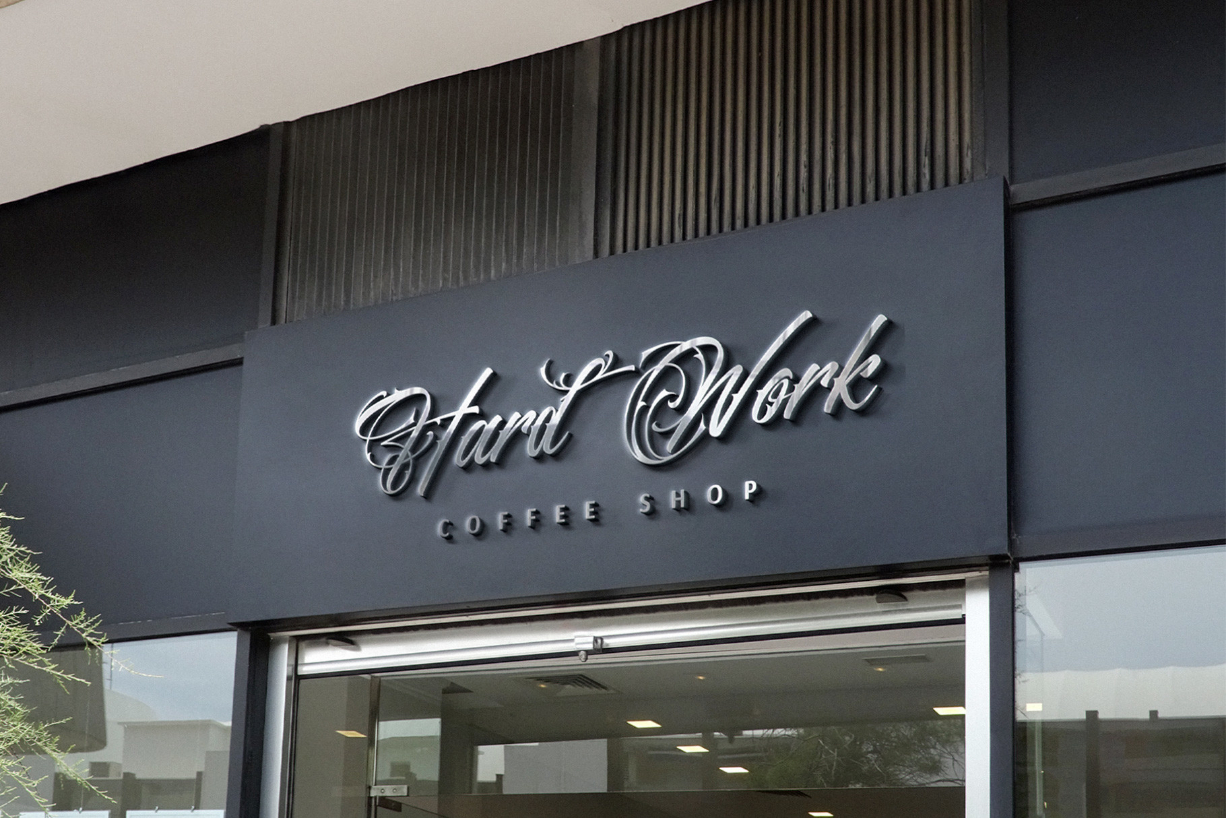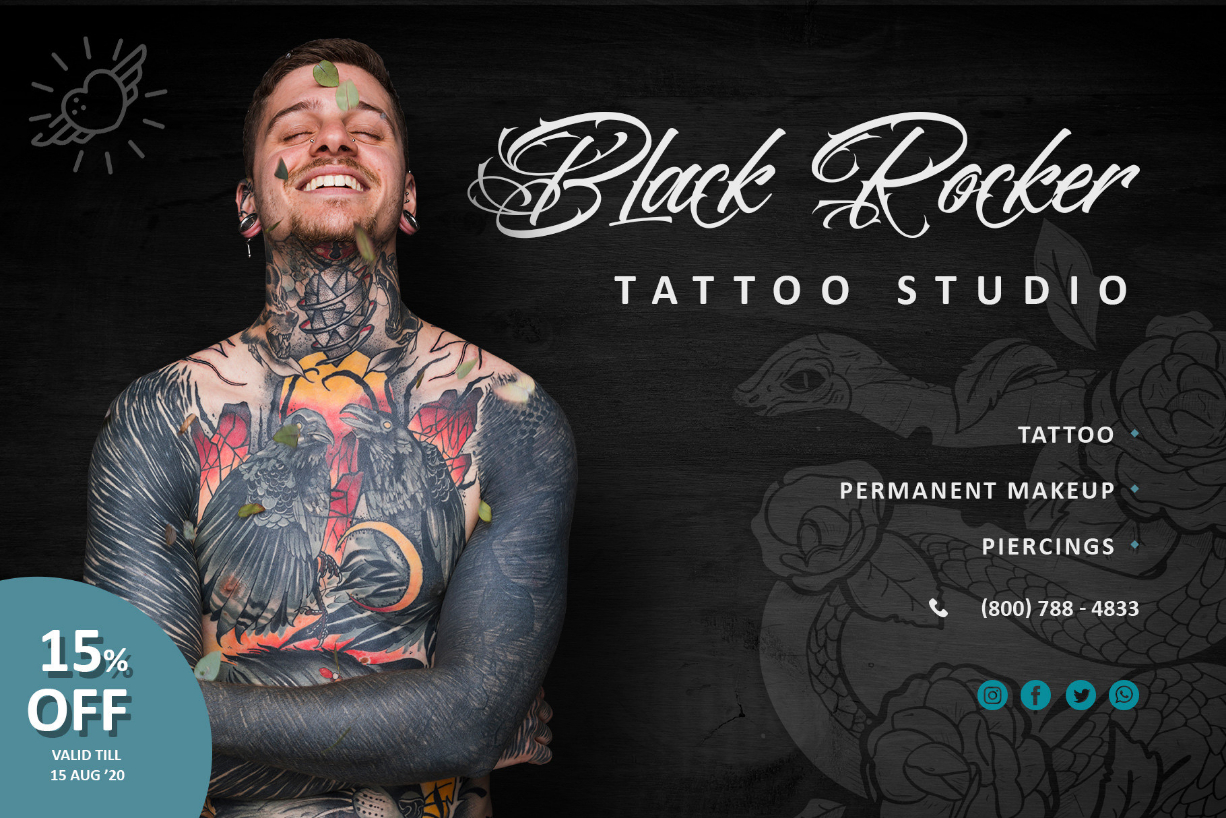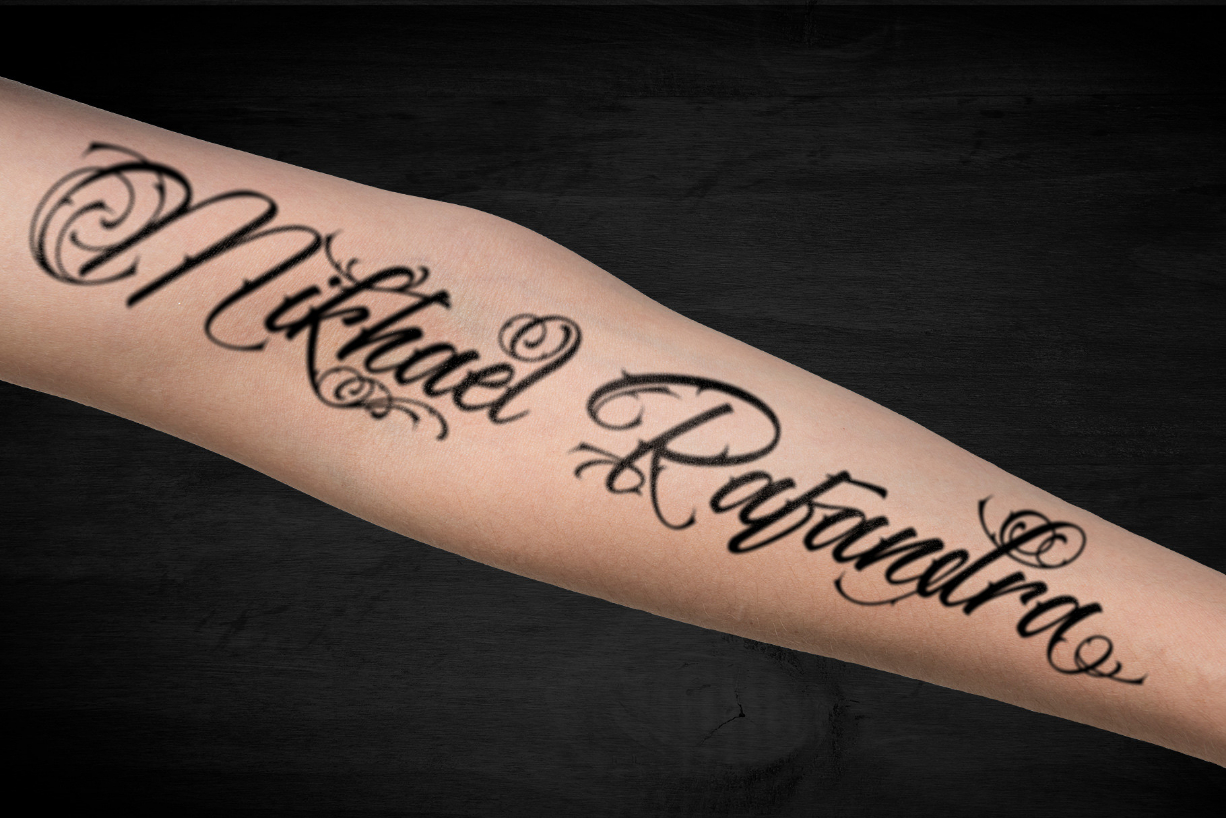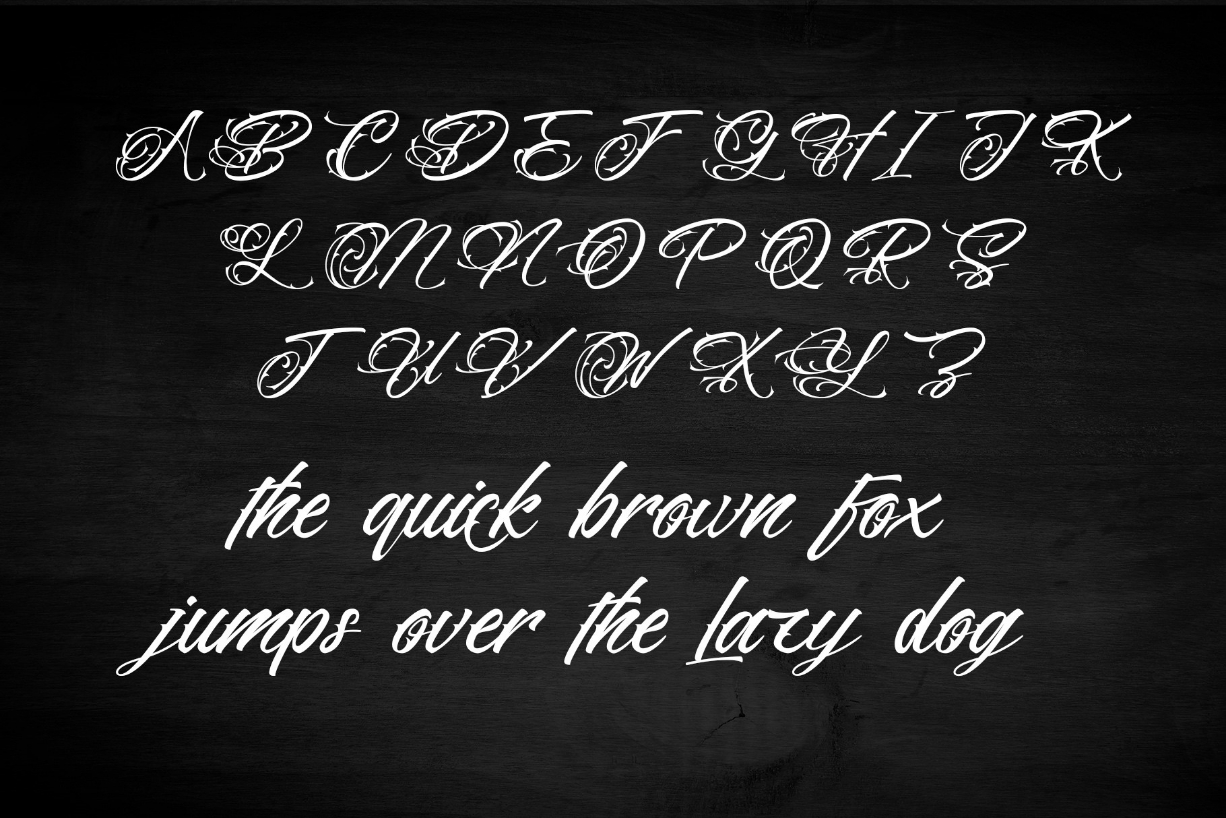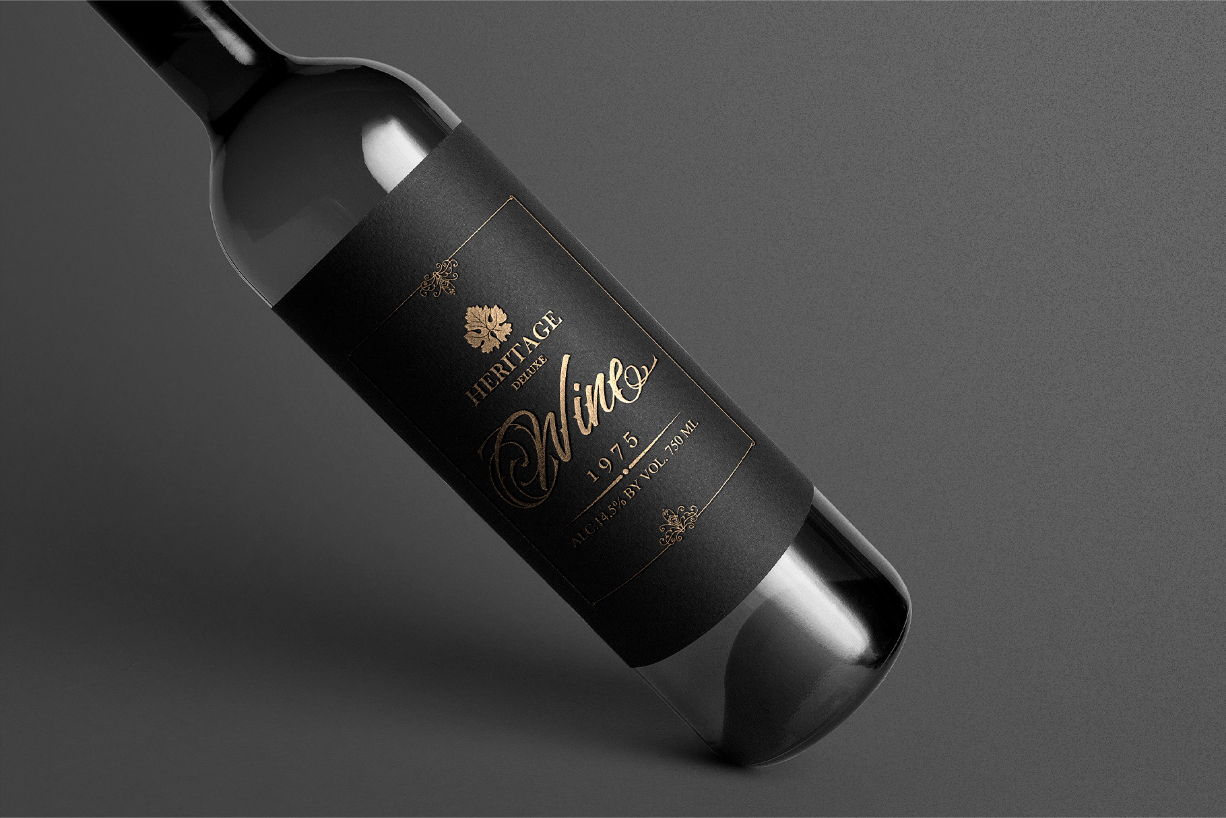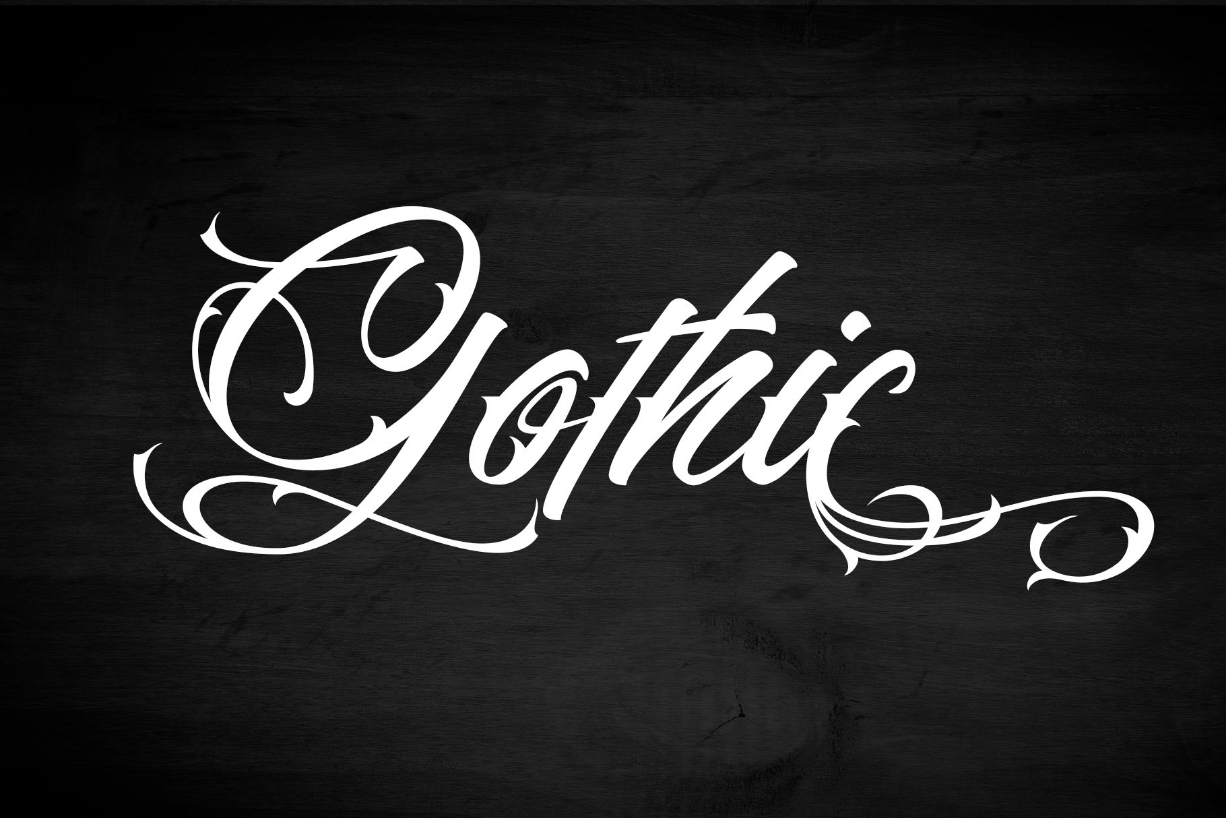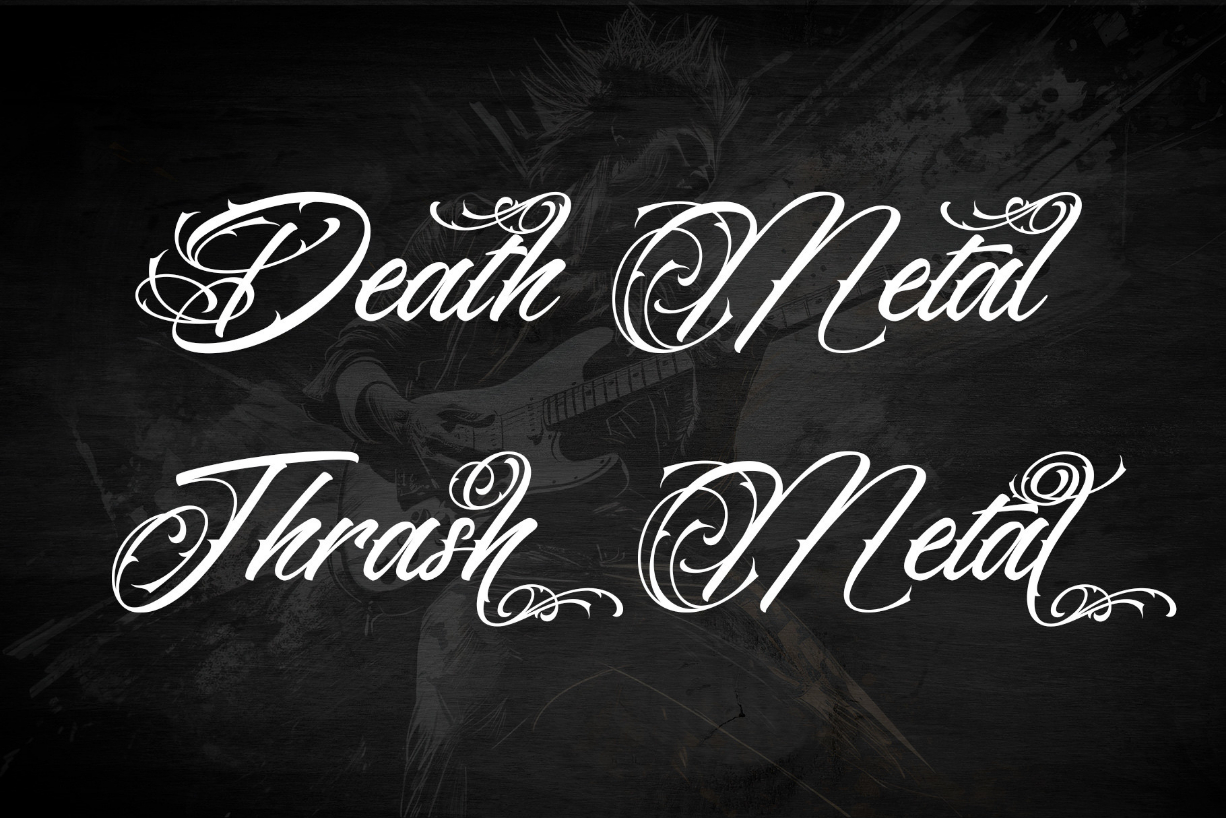
About Quillstone Font
Introducing Quillstone Typeface, a captivating font that elegantly blends the artistry of calligraphy with a rebellious edge. Its meticulously crafted bold lines exude modern sophistication while ensuring effortless readability, making it ideal for tattoos or diverse design projects. With its PUA encoding, Quillstone offers a plethora of intricate glyphs and swashes, unlocking endless creative possibilities. Make a statement and adorn your work with the timeless charm of Quillstone Typeface, where versatile design meets the allure of tattoo-inspired script.